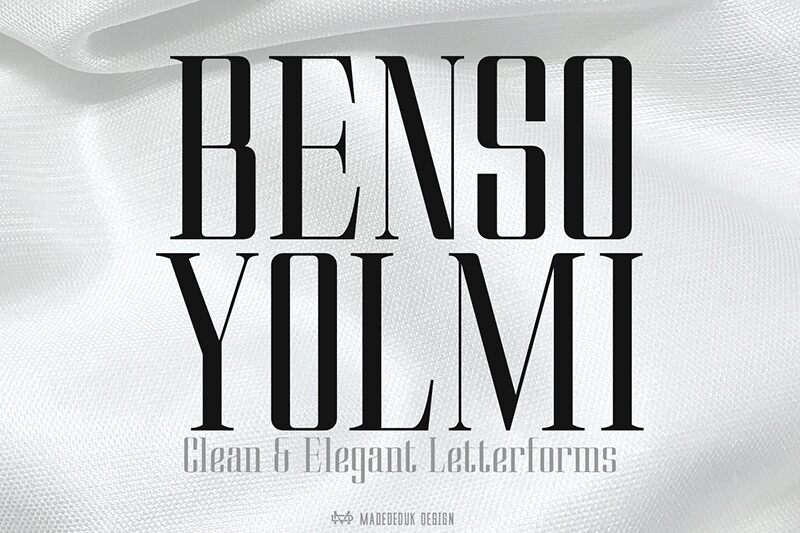
Benso Yolmi font designed by madeDeduk is a free serif font with an elegant and modern appeal. Its sophisticated, strong character makes it an excellent tool for achieving contemporary and artistic designs with impact. The letters this font features have a refined and stylish look that displays a sleek and unique design style perfect for modern creations.
If your aim is a high-legibility font that will beautifully convey your written messages, you can use Benso Yolmi for each project you’re working on. It would be perfect for headings, websites, branding, social media, packaging, fashion, posters, magazines, and luxury.